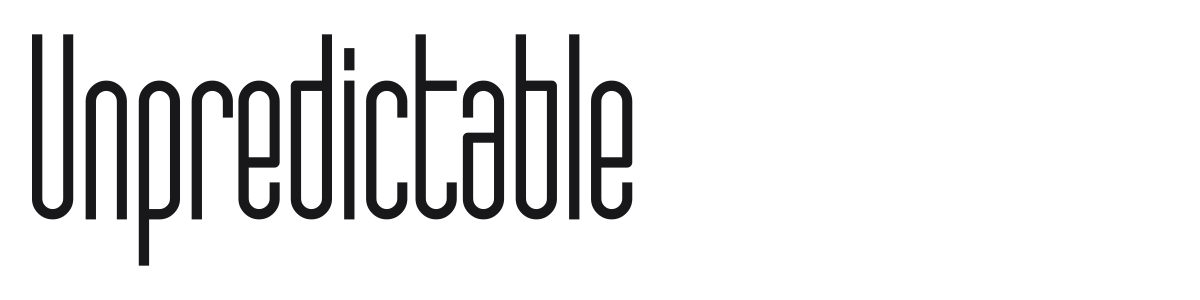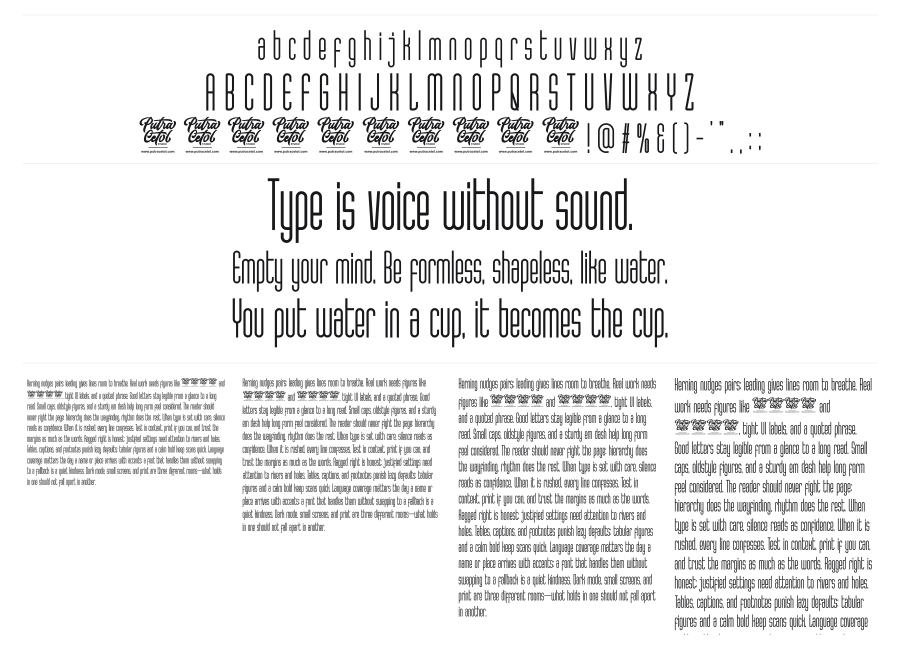
Unpredictable
Unpredictable is a condensed geometric sans with tall, narrow proportions and a clean light weight. Subtle angled notches at key stroke junctions give it a quietly distinctive construction without breaking from its minimal geometry. Strong in fashion branding, editorial headlines, and any context where sleek verticality makes an impact.